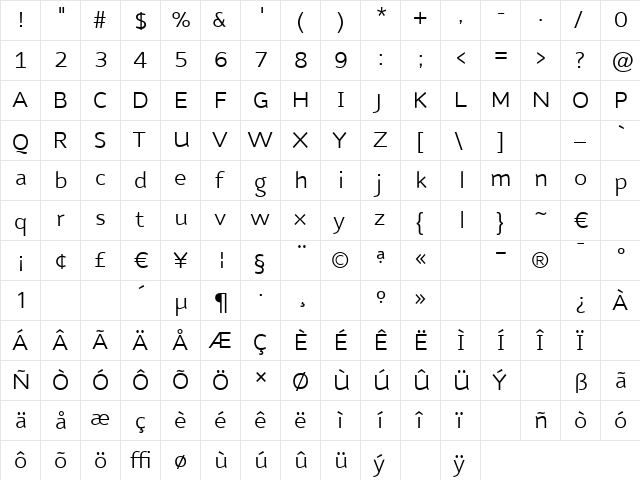
NubianAltLight Regular
Design Context for NubianAltLight Typeface
NubianAltLight takes a measured approach to typography — its balanced proportions and neutral character make it a reliable workhorse for both digital and print work. The delicate stroke weight brings airiness and refinement to layouts.